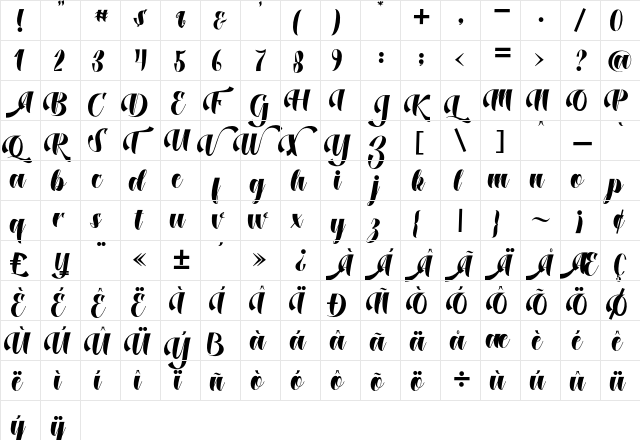
Dustine Script Regular
Design Context for Dustine Script Typeface
Dustine Script brings a calligraphic fluidity to the page — its connecting strokes and expressive curves give it an unmistakably human quality.
Font Pairing: Combine Dustine Script with a simple geometric sans for maximum contrast — the tension between flowing curves and clean structure is a classic typographic pairing.
Pro Tip: Use Dustine Script for short runs of text — names, titles, or taglines. Extended body copy in script faces tires the eye quickly.